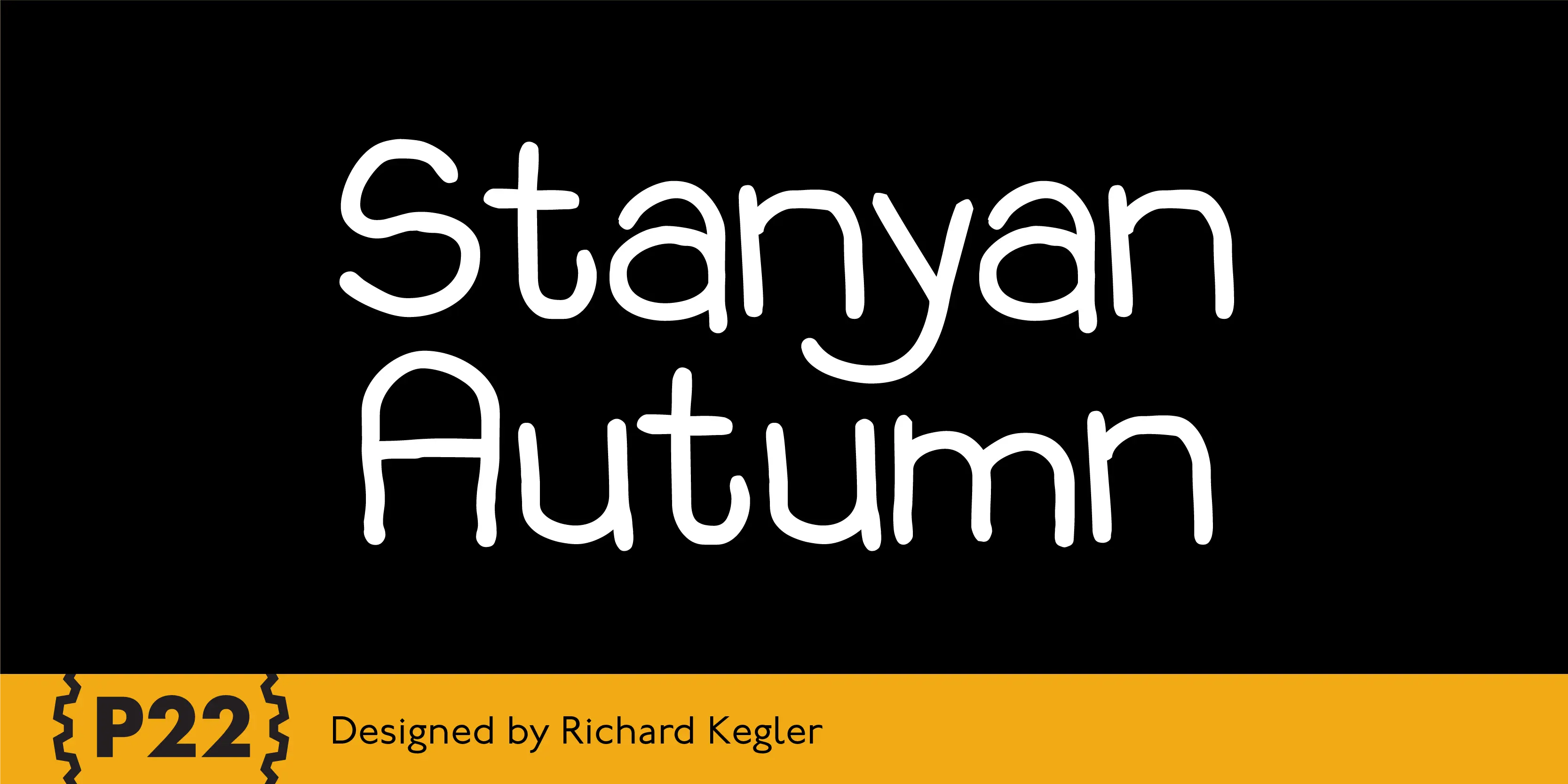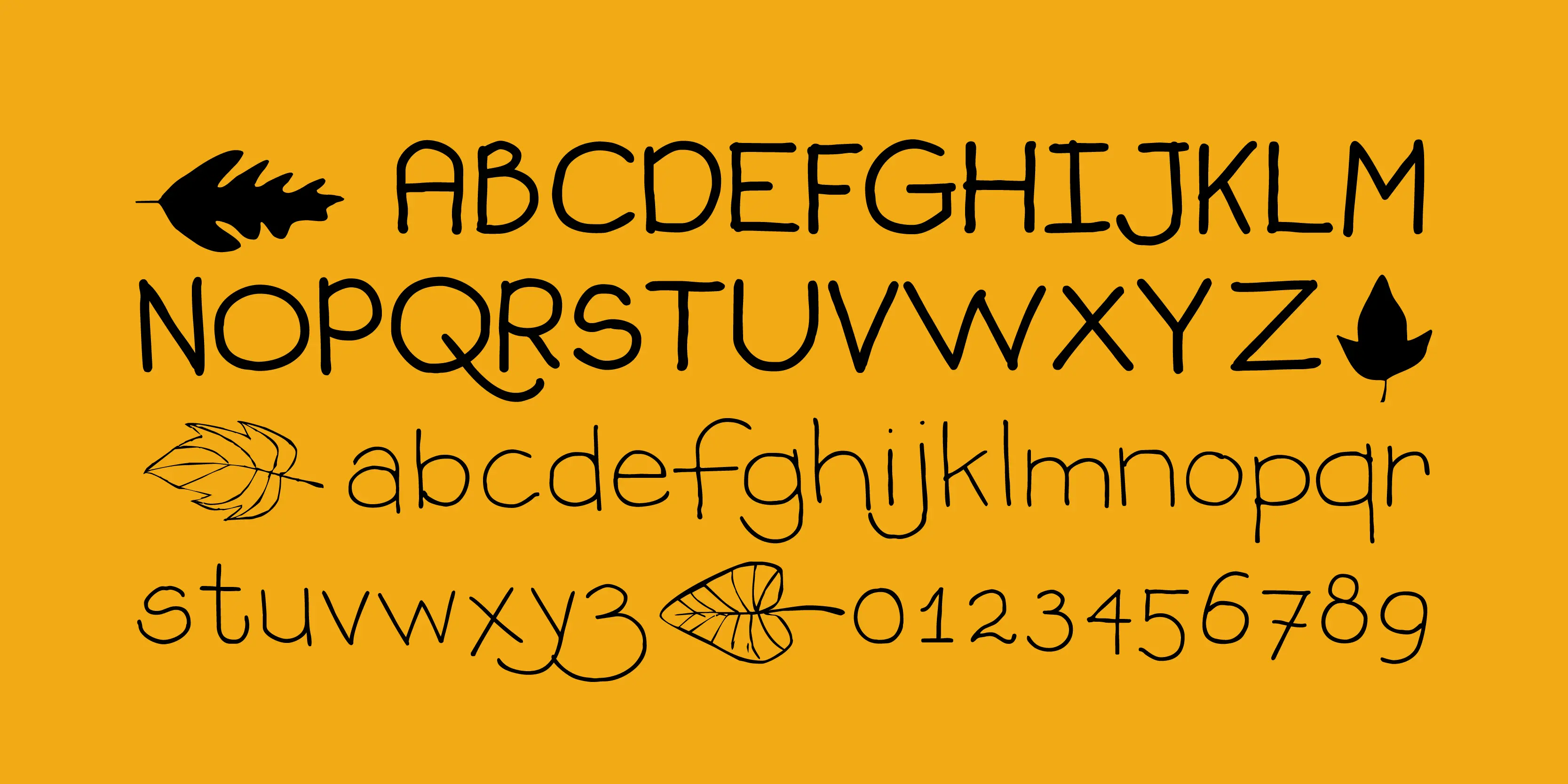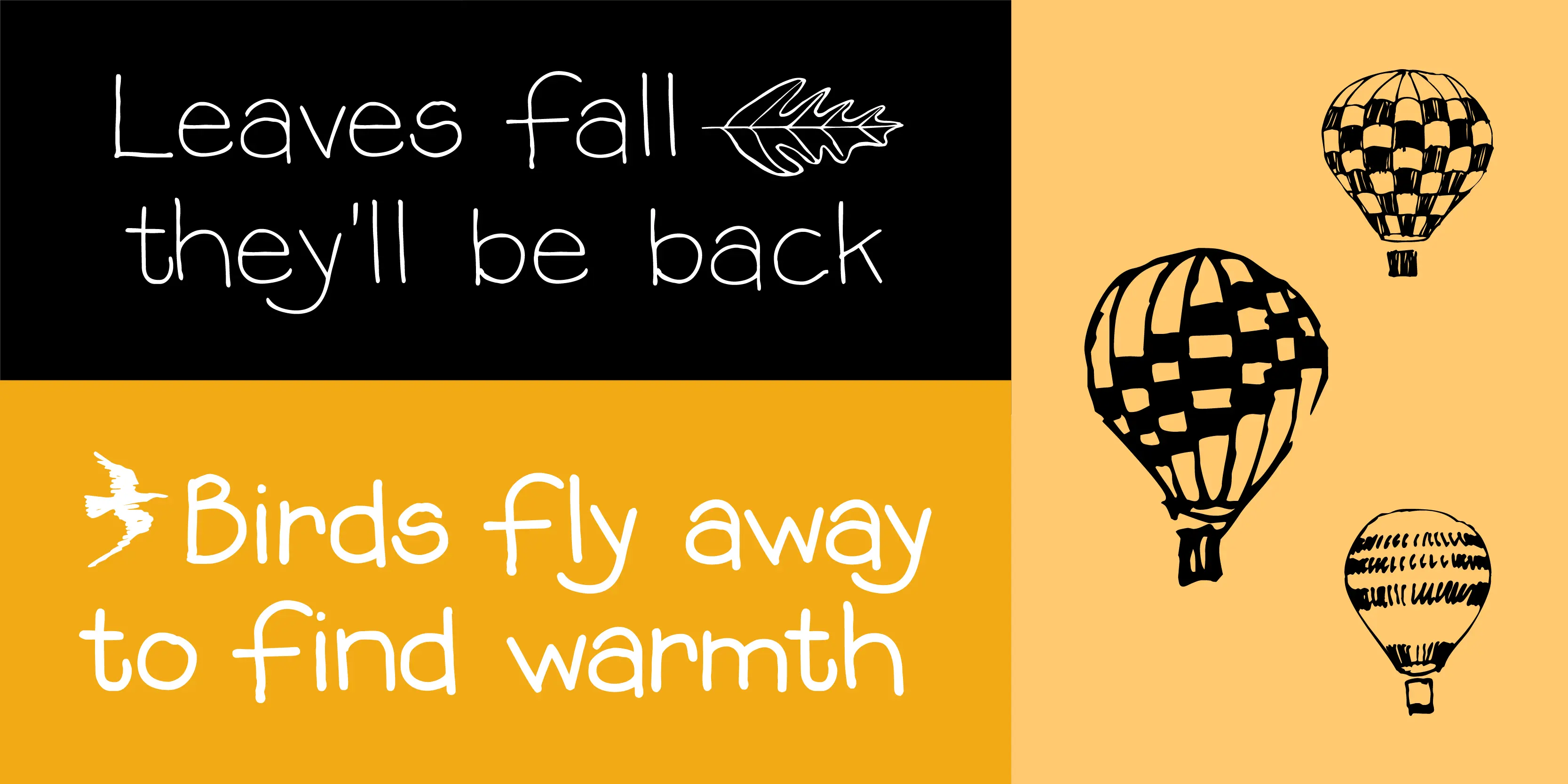
Stanyan Autumn Font Family
Stanyan Autumn
P22 Stanyan Autumn is based on casual hand lettering created by Anthony Goldschmidt for the deluxe 1969 edition of the book … and autumn came by Rod McKuen. Because of their openness, of these informal typefaces they work well as text sizes, but their character is really noticed in large settings. Stanyan Autumn Extras includes images of autumn leaves, snippets of pastoral scenes, and various McKuen-related icons. Stanyan Autumn can easily be used in earnest or childlike ways.
- Common Ligatures
- Stylistic Alternates